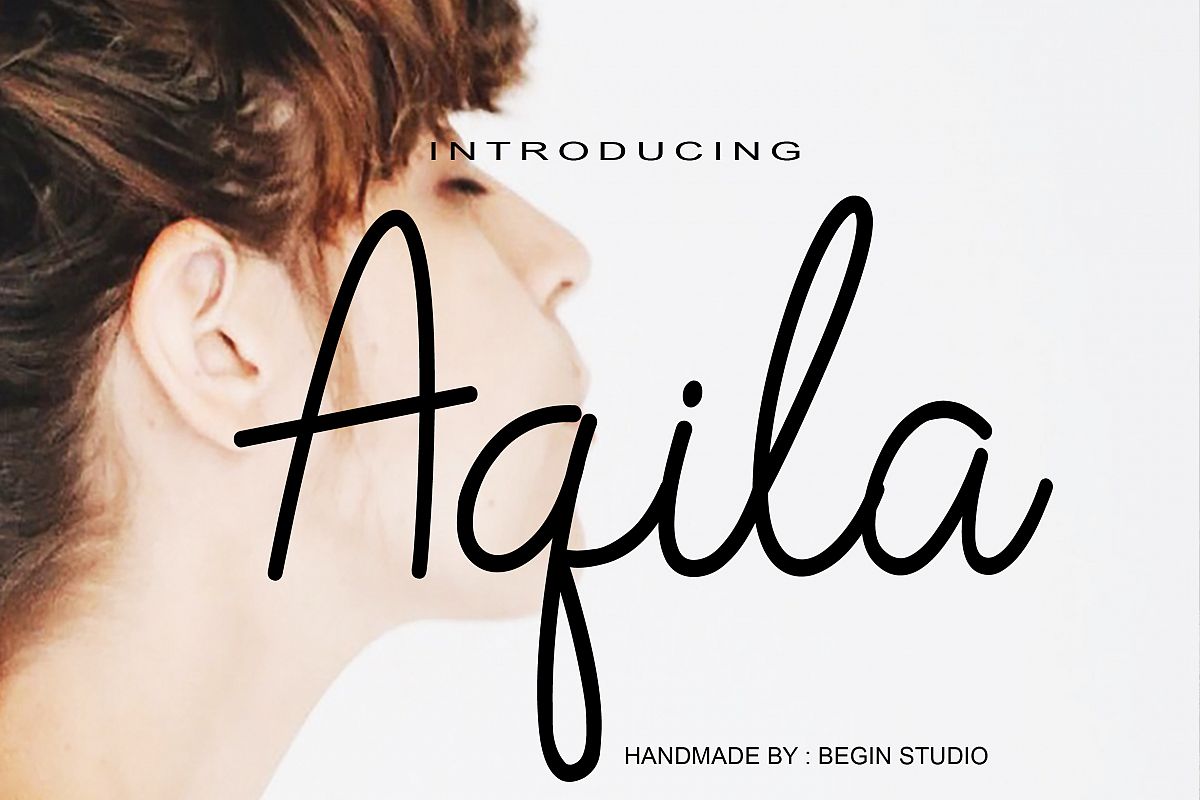
Aqila
this is signature font, we know what you feel, thats just the same with us. But please dont get bored with it, Let us drop some because, why not?
say hello to aqila, a typical and usual handwritten signature font.
a branding with this font will be a good choice, vintage, feminine, classy, elegant, formal, logo, casual, you name it